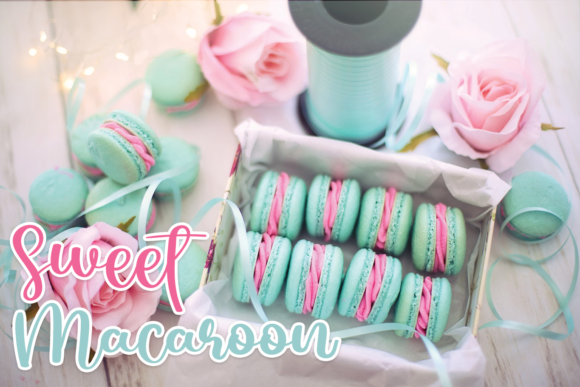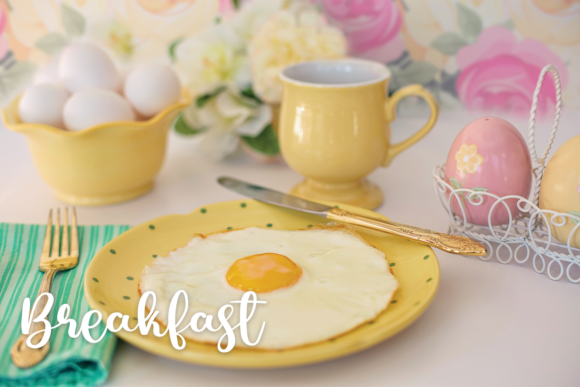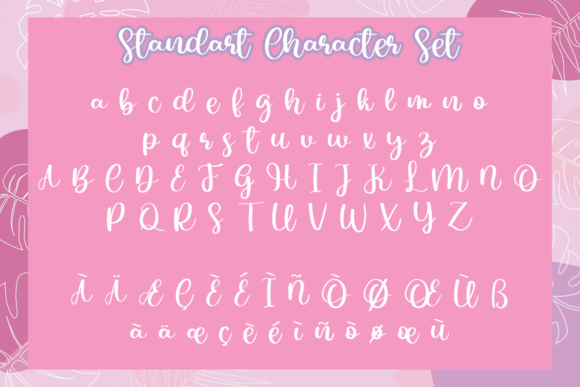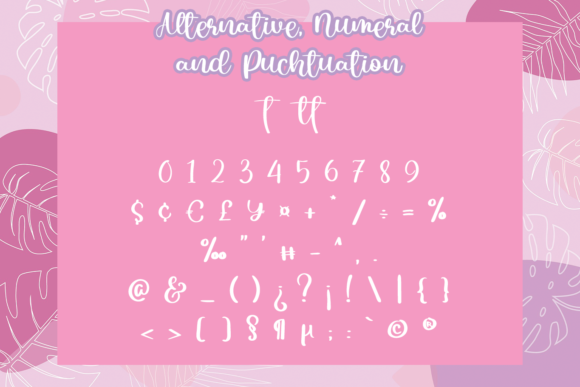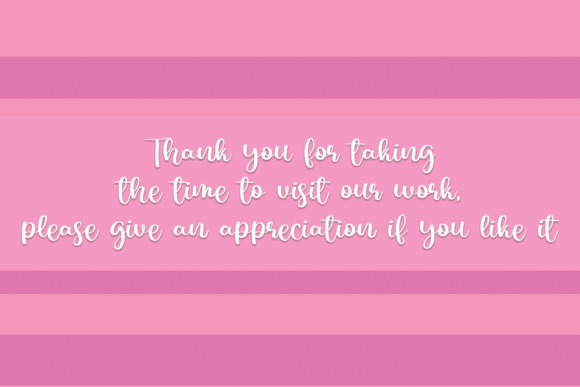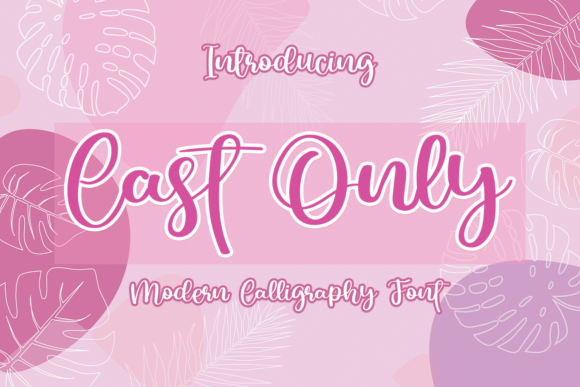
Introducing Cast Only Font: Elevate Your Designs with Elegance
In the world of typography, a font can make or break a design. For designers and crafters looking to add a touch of sophistication and style to their creations, Cast Only Font is an exceptional choice. This fashionable script font is meticulously crafted with high attention to detail, making it a versatile and valuable addition to any font library.
The Beauty of Cast Only Font
Cast Only Font boasts a unique and elegant script style that can instantly elevate the aesthetic of any project. Its neatly crafted and highly detailed design ensures that it stands out from more generic fonts, offering a distinctive look that can help your work stand out. Whether you’re working on a branding project, crafting a beautiful wedding invitation, or designing a captivating poster, Cast Only Font brings a level of sophistication and refinement that’s hard to match.
One of the key advantages of Cast Only Font is its versatility. Regardless of the topic or theme of your project, this font can adapt and complement it beautifully. From fashion and beauty to travel and lifestyle, Cast Only Font has the potential to enhance any creation, making it a wonderful asset to your font library. Its elegant and flowing script can add a touch of luxury, whimsy, or romance, depending on the context, allowing designers to explore a wide range of creative possibilities.
Crafting Exceptional Designs
For crafters and designers, finding the right font can often be a challenge. You need something that not only looks great but also complements your design and communicates your message effectively. Cast Only Font checks all these boxes and more. Its readability and aesthetic appeal make it perfect for both digital and print projects. Whether you’re creating a social media graphic, a website header, or a printed brochure, Cast Only Font can help you achieve a professional and stylish look.
Why Choose Cast Only Font?
- Elegant and Unique Design: Offers a distinctive script style that can elevate any design.
- Highly Versatile: Suitable for a wide range of projects and themes.
- Attention to Detail: Neatly crafted with high detail for a sophisticated look.
- Easy to Read: Maintains readability even in smaller sizes, making it perfect for various applications.
Tips for Using Cast Only Font
To make the most out of Cast Only Font, consider the following tips:
- Pair it with Simplicity: Let Cast Only Font be the star of your design by pairing it with simpler fonts for contrast.
- Experiment with Sizes: Play with different sizes to create visual hierarchy and emphasize key points.
- Use it Sparingly: While it’s tempting to use Cast Only Font throughout your design, using it sparingly can make it more impactful.
Cast Only Font is more than just a script font; it’s a tool that can transform your designs, adding elegance, sophistication, and a professional touch. Its versatility, beauty, and attention to detail make it an invaluable resource for designers and crafters looking to create stunning and memorable pieces. Whether you’re a seasoned designer or just starting out, Cast Only Font is sure to become a favorite in your font library, helping you to create works that are not only visually appealing but also emotionally resonant.